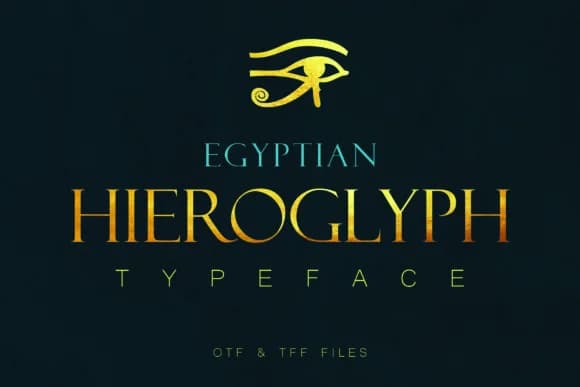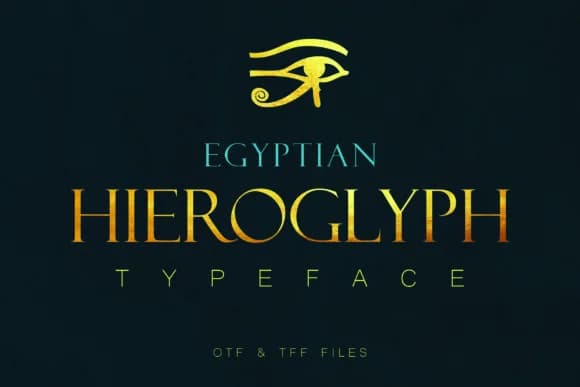
1 / 5About Egyptian Hieroglyph Font
The blocky, angular shapes of Egyptian Hieroglyph by denestudios draw directly from the visual language of ancient hieroglyphic symbols, creating a distinctive symbol set rather than traditional letterforms. This dingbats font transforms ornamental blocks and pictographic elements into decorative assets that feel both historically grounded and visually striking for contemporary design work. The character set captures the essence of a written visual system that's instantly recognizable and carries real cultural weight.
You'll find this font particularly suited to projects that need symbolic depth and historical texture. Mystery novel covers and tarot card decks benefit from the authentic hieroglyphic character set, adding atmosphere and credibility to esoteric branding efforts. Craft makers use it to embellish jewelry packaging, scrapbooking layouts, and DIY mystical-themed products. The font works equally well for escape room materials, board game components, and antique shop signage where intrigue and visual storytelling matter as much as readability. Designers exploring symbolism in packaging or branding will find the distinctive character palette engaging and memorable.
Egyptian Hieroglyph is best suited for designers and makers creating work that calls for symbolism, mystique, and cultural resonance beyond standard alphabetic text. You can find it on Creative Fabrica.
Egyptian Hieroglyph Font is a versatile dingbats font that works for both headings and body text. Pair it with a contrasting sans-serif or serif font to add visual interest and a clear distinction between titles and body copy.
Egyptian Hieroglyph Font